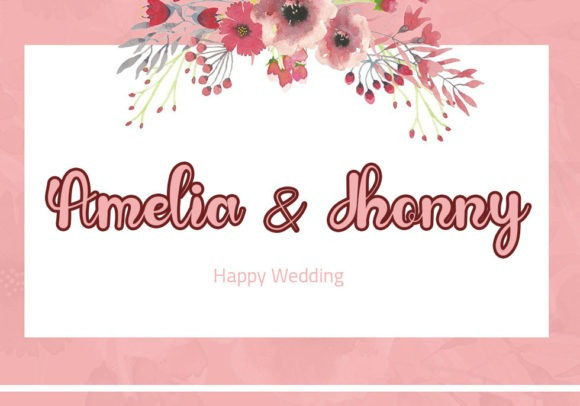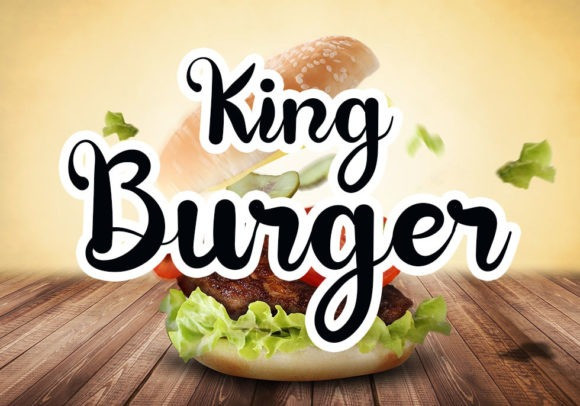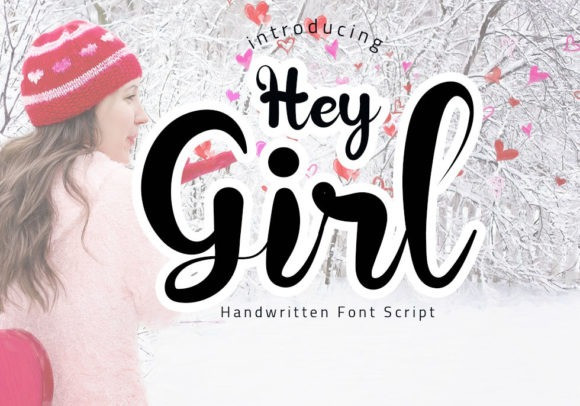
Hey Girl Font
Hey Girl Script Font is a sweet and cursive handwritten font. This gentle font will look gorgeous on a variety of design ideas. It will add a joyful and romantic touch to each of your projects!